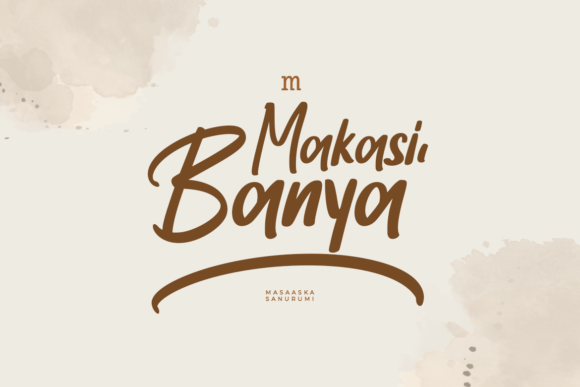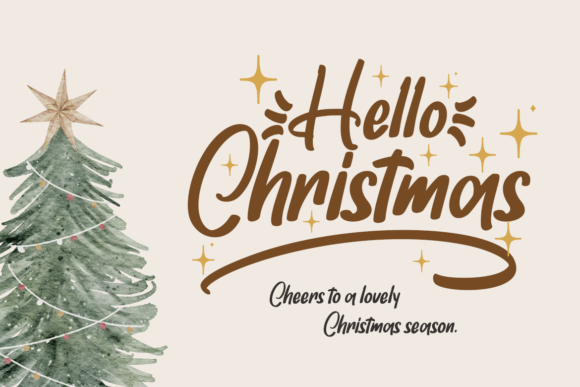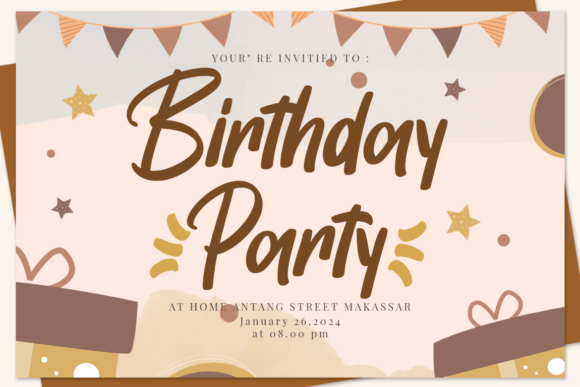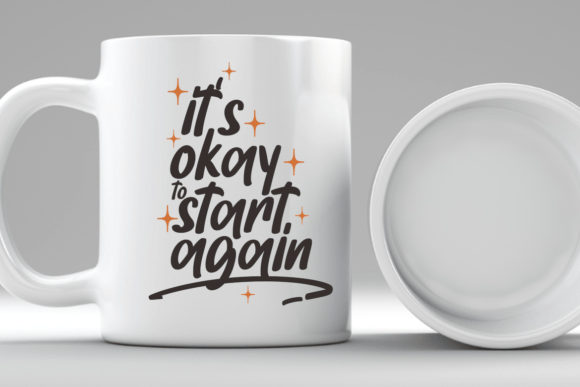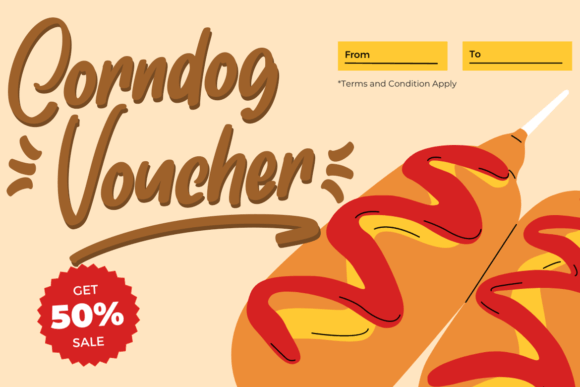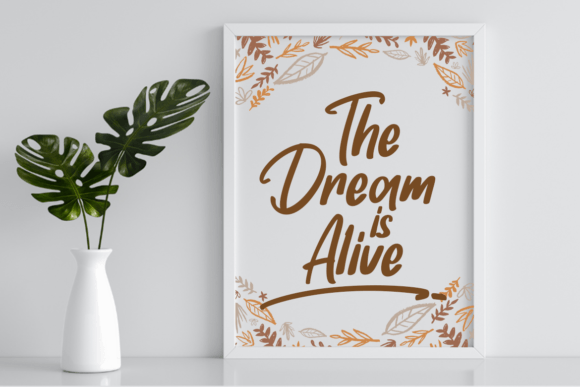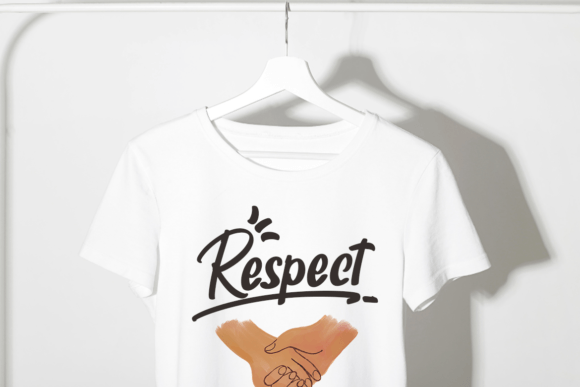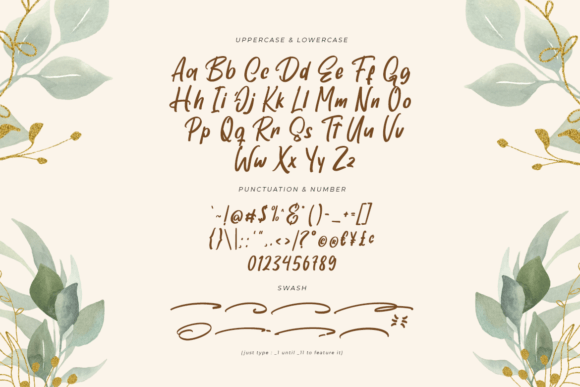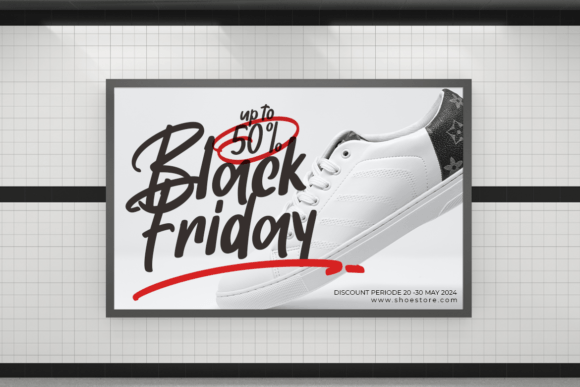
Triple Billimore Font
Add Playful Elegance with Triple Billimore Font
Triple Billimore Font is a versatile, stylish, and playful handwritten script typeface designed to bring a clean and exquisite feel to your creative projects. This font adapts well to a wide range of applications, making it a favorite among designers and artists. Whether you are creating greeting cards, headlines, social media graphics, or promotional materials, Triple Billimore Font adds charm and sophistication to your work.
Its smooth, flowing strokes combined with a playful touch create a lively yet elegant look that enhances any design.
Versatile Uses for Triple Billimore Font
Triple Billimore Font fits beautifully in many creative projects, such as:
• Greeting cards and invitations
• Headlines and titles for posters and flyers
• Social media content and digital designs
• Branding and logo elements
• Personalized stationery and notes
• Craft and DIY projects
Thanks to its versatile, stylish, and playful handwritten script style, Triple BillimoreFont adds personality and polish to all your creative ideas.
It features balanced kerning and clear spacing to ensure your text stays readable and visually appealing across different sizes and formats.
Why Designers Choose Triple BillimoreFont
Designers and creatives appreciate Triple BillimoreFont for its playful style and versatile elegance. It adds a fresh and lively flair that elevates any project. Whether you are a professional or a hobbyist, Triple BillimoreFont helps you create beautiful and memorable typography effortlessly.
Use Triple BillimoreFont to bring playful charm and stylish versatility to your next creative design.